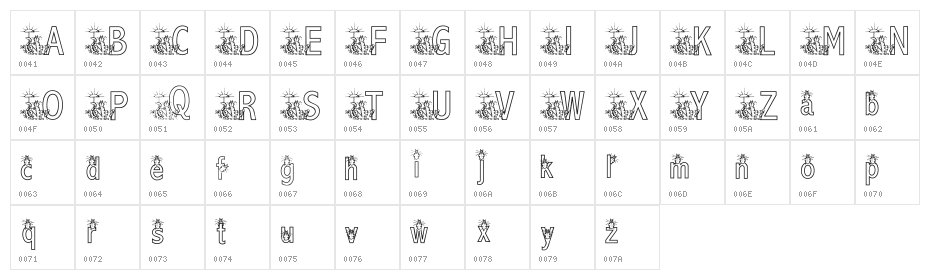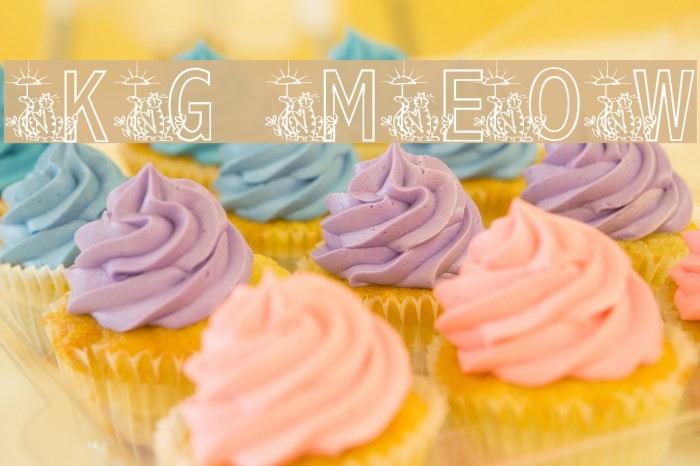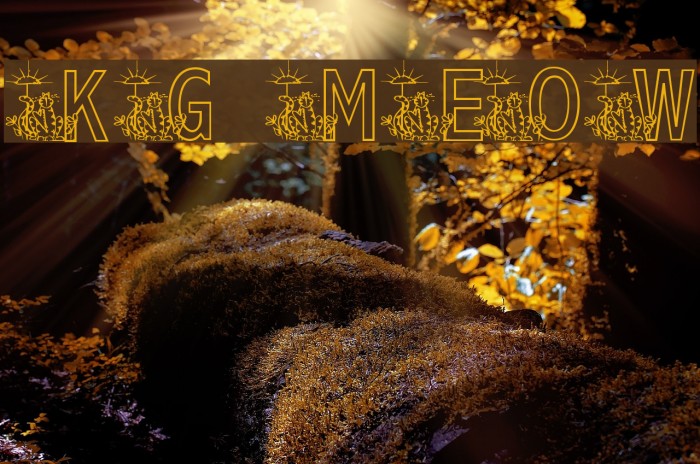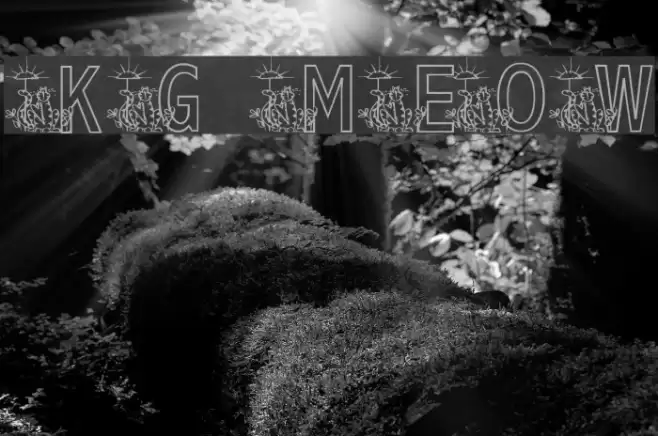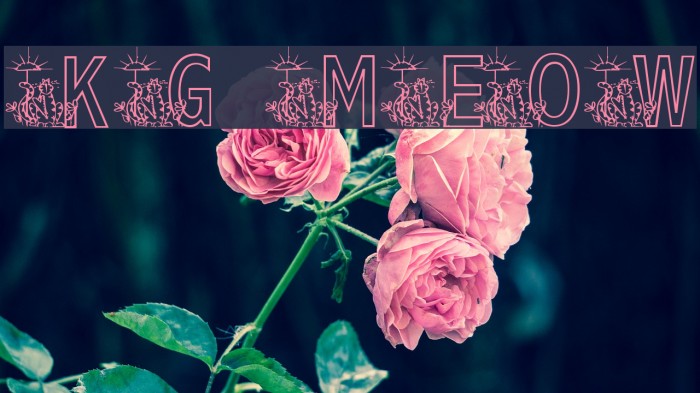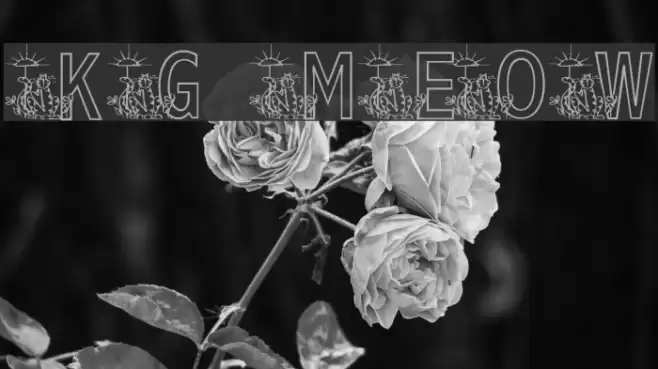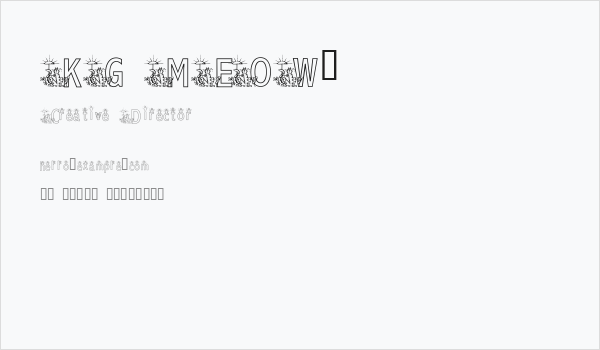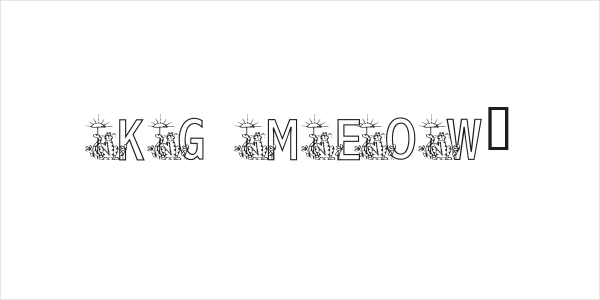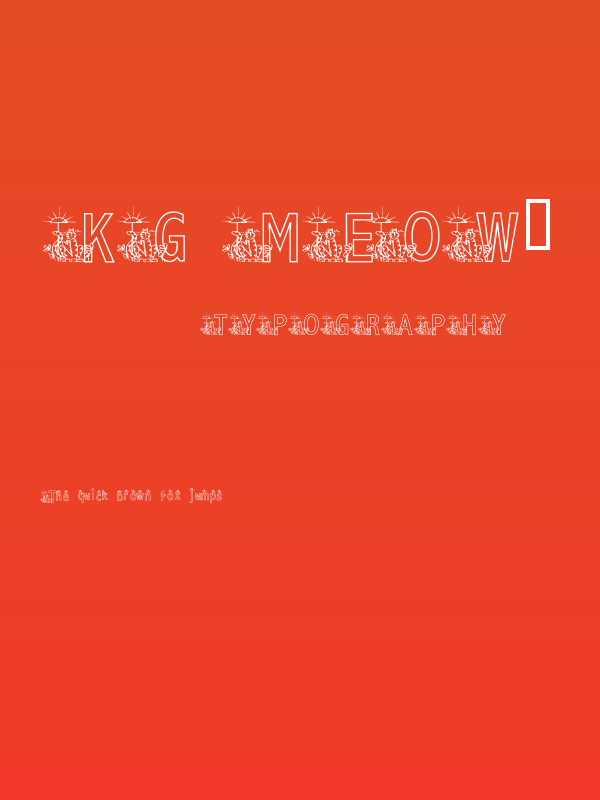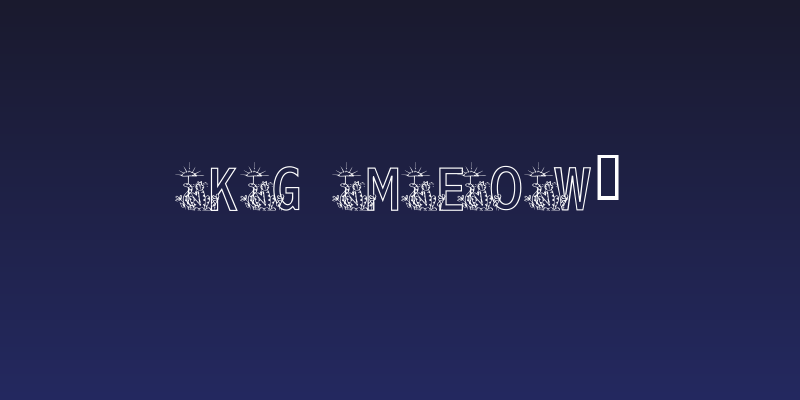
KG MEOW2 Font
KG MEOW2 Description
This playful and whimsical font features a unique design where each character is accompanied by a small, cartoonish cat illustration integrated into the letterform. The letters are bold and outlined, providing a strong visual impact while maintaining a lighthearted and fun aesthetic. The font's decorative nature makes it ideal for projects that require a touch of humor and creativity. The combination of bold outlines and intricate cat illustrations creates a distinctive style that stands out in any design context.
| Proposed Projects | Ideal for children's books, playful branding, pet-related products, and creative posters. |